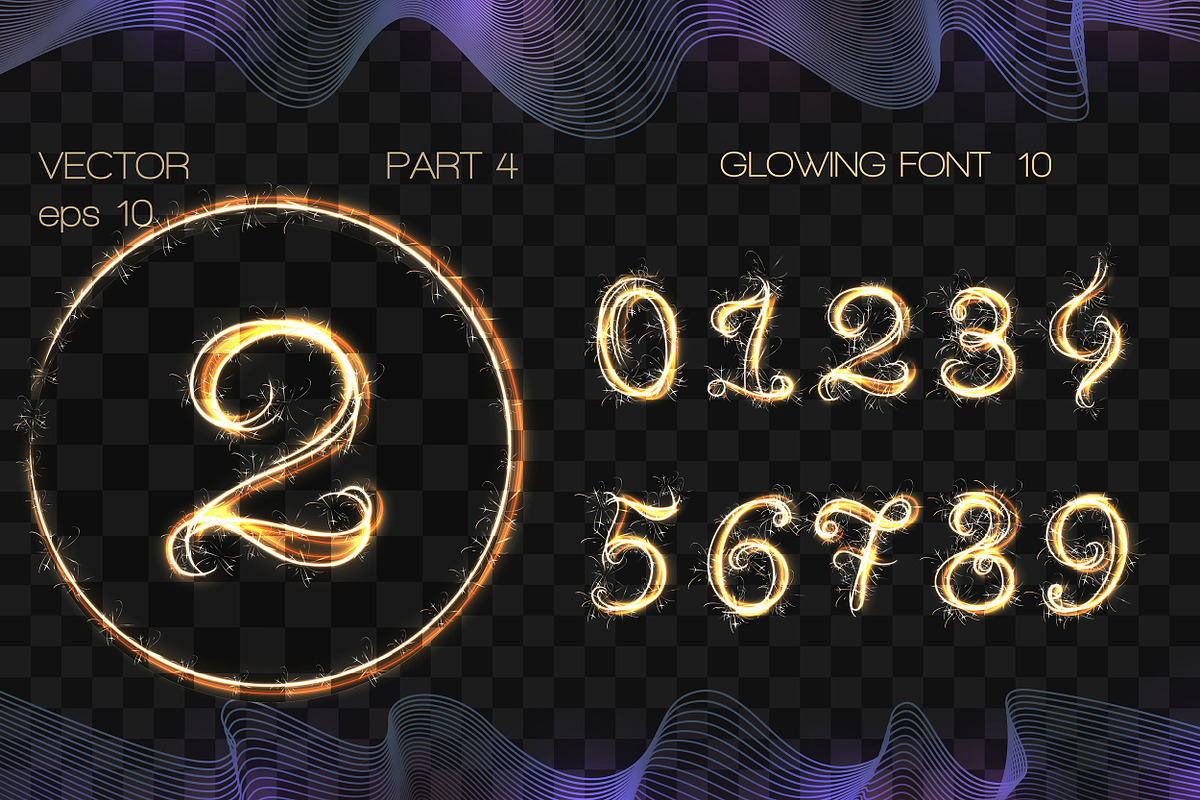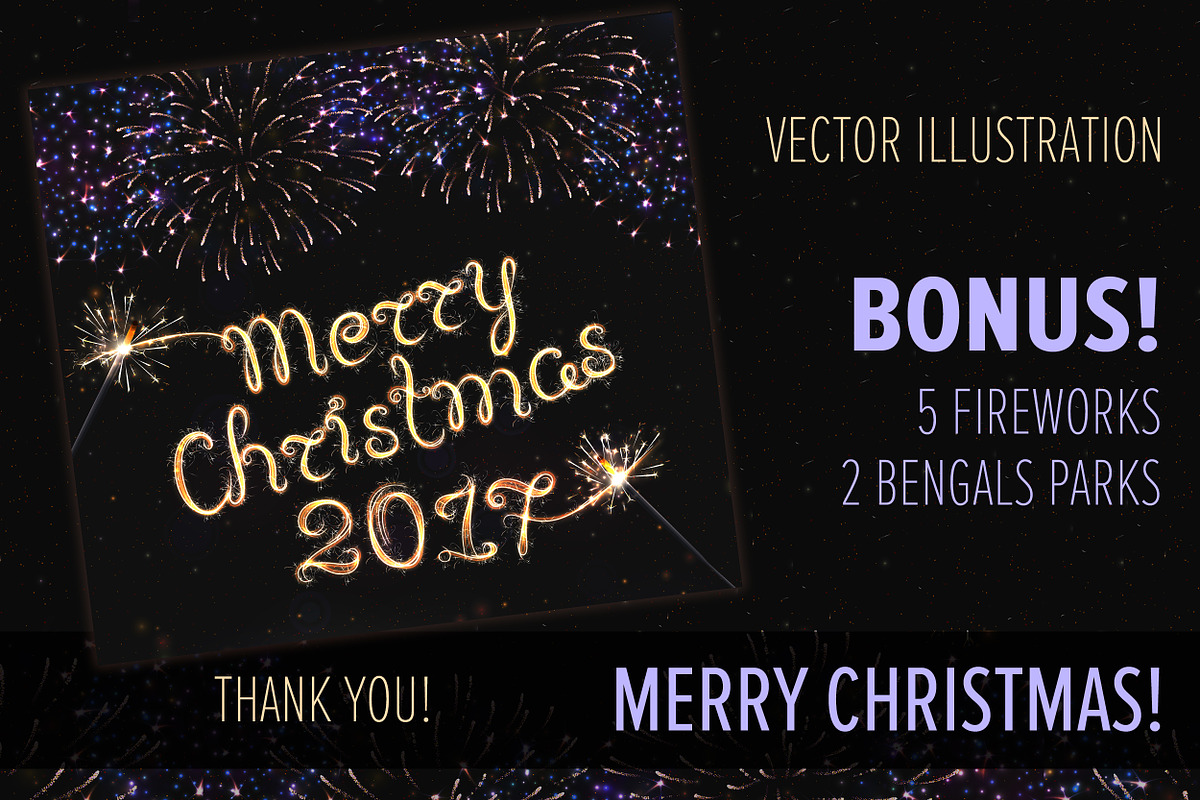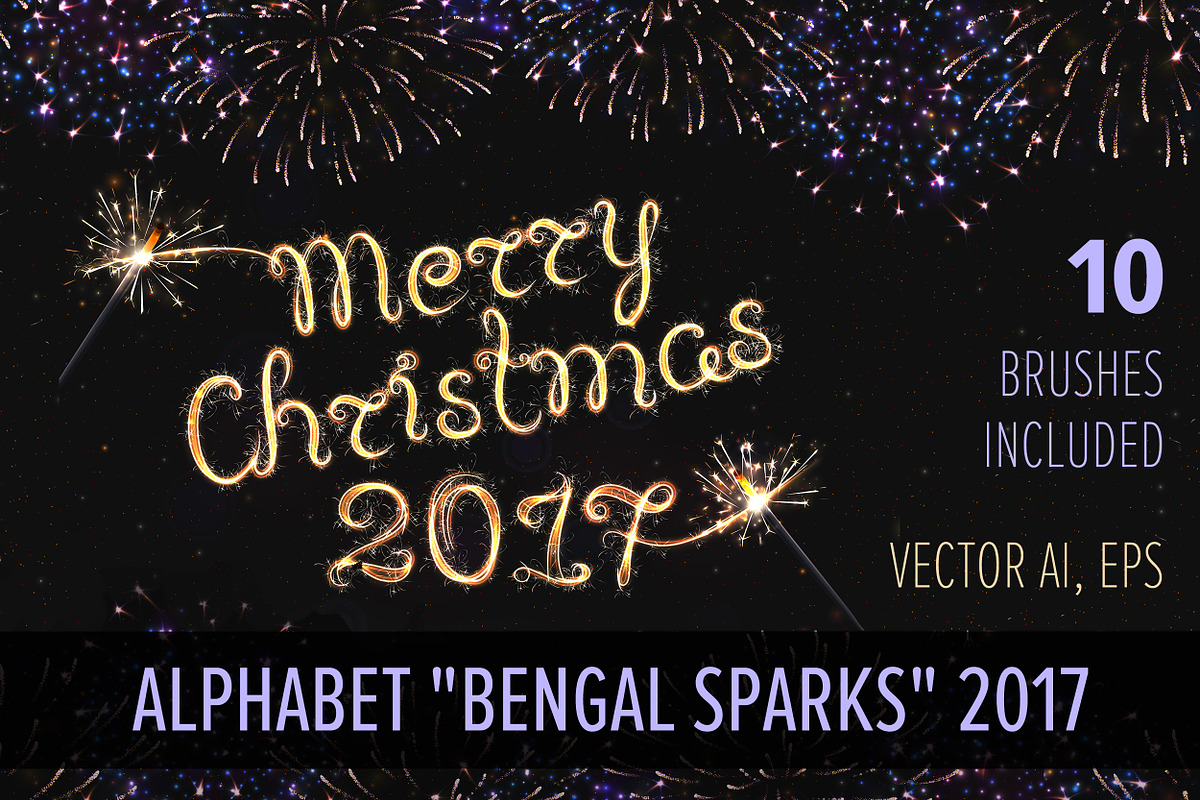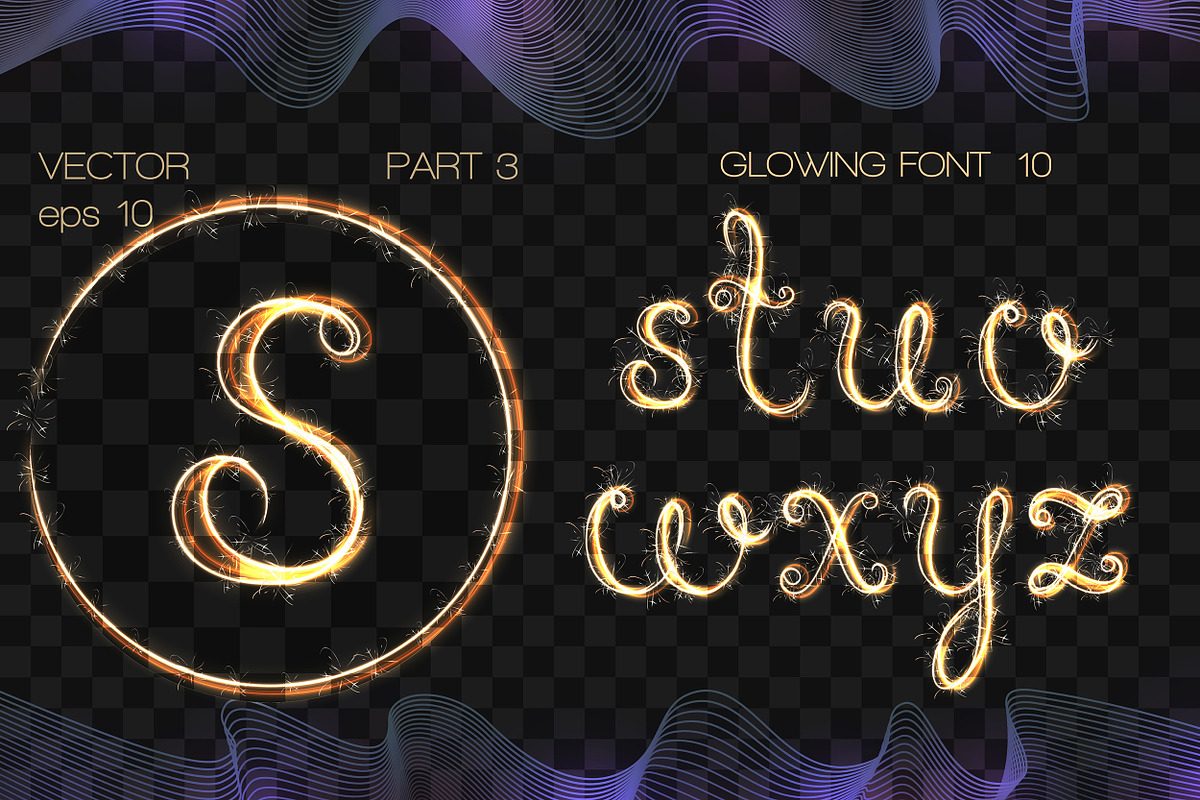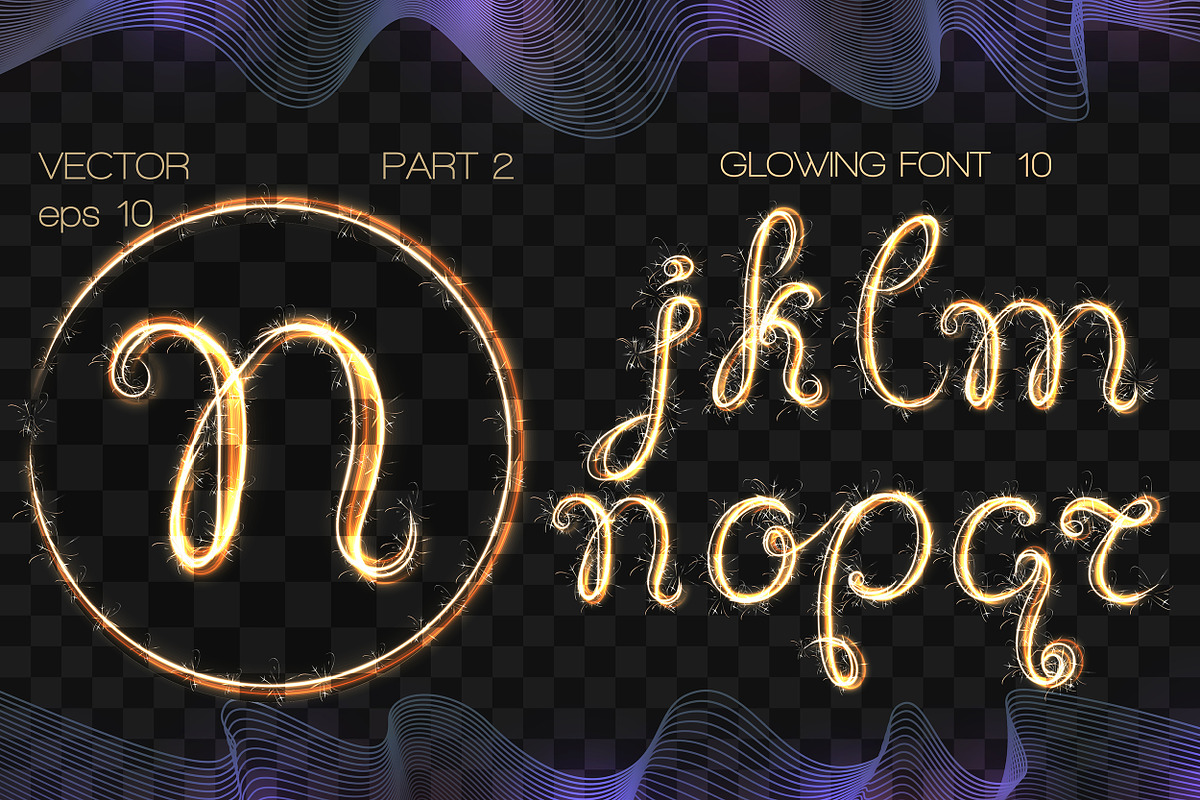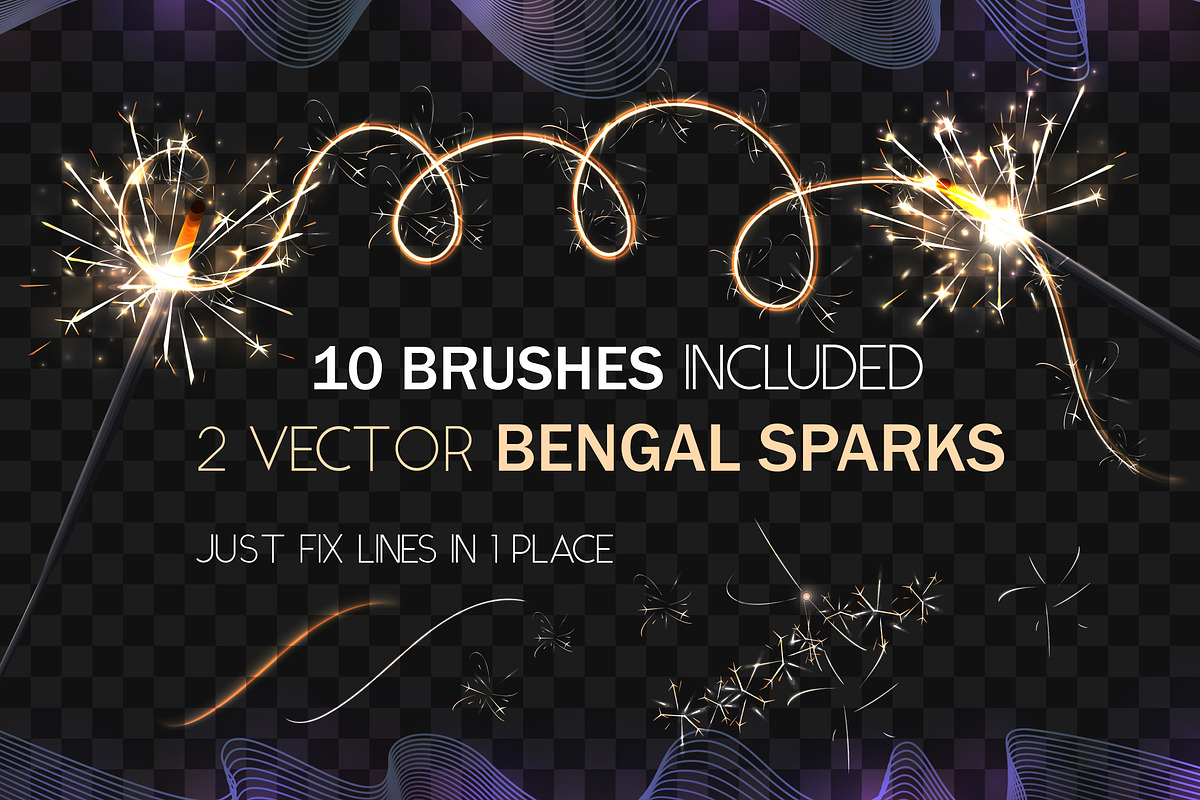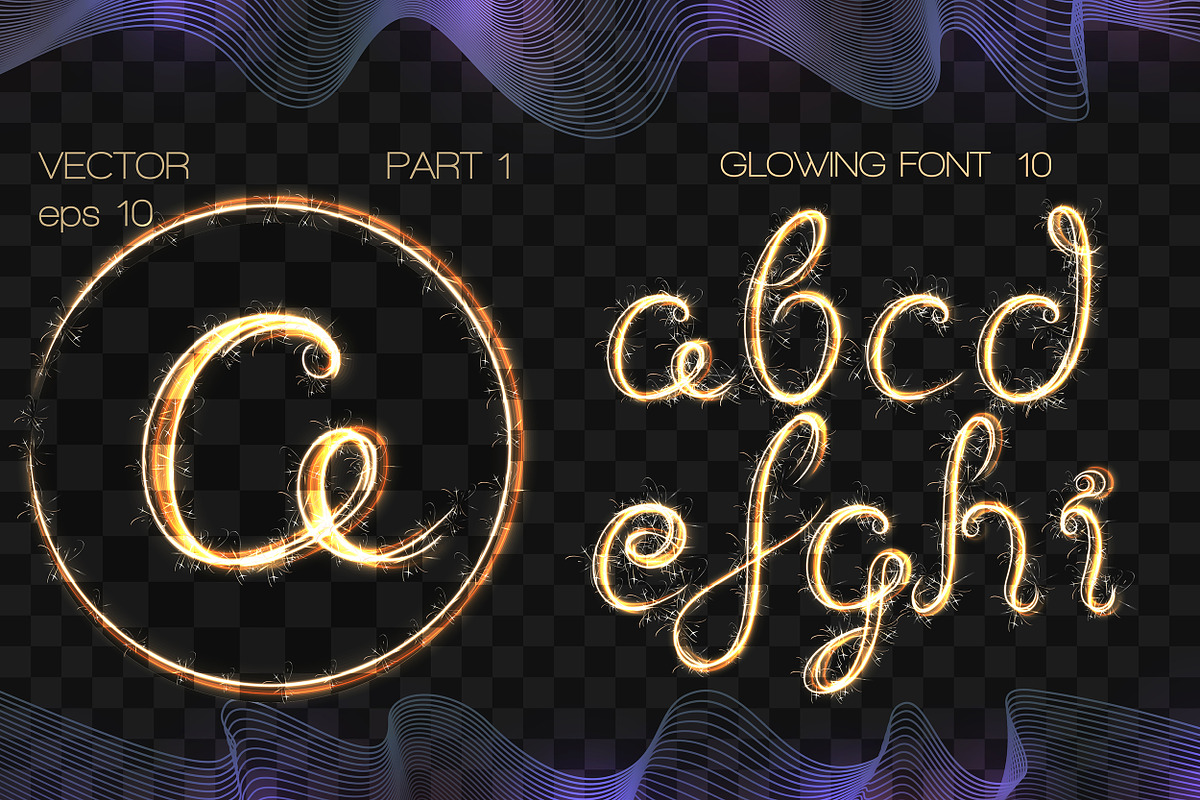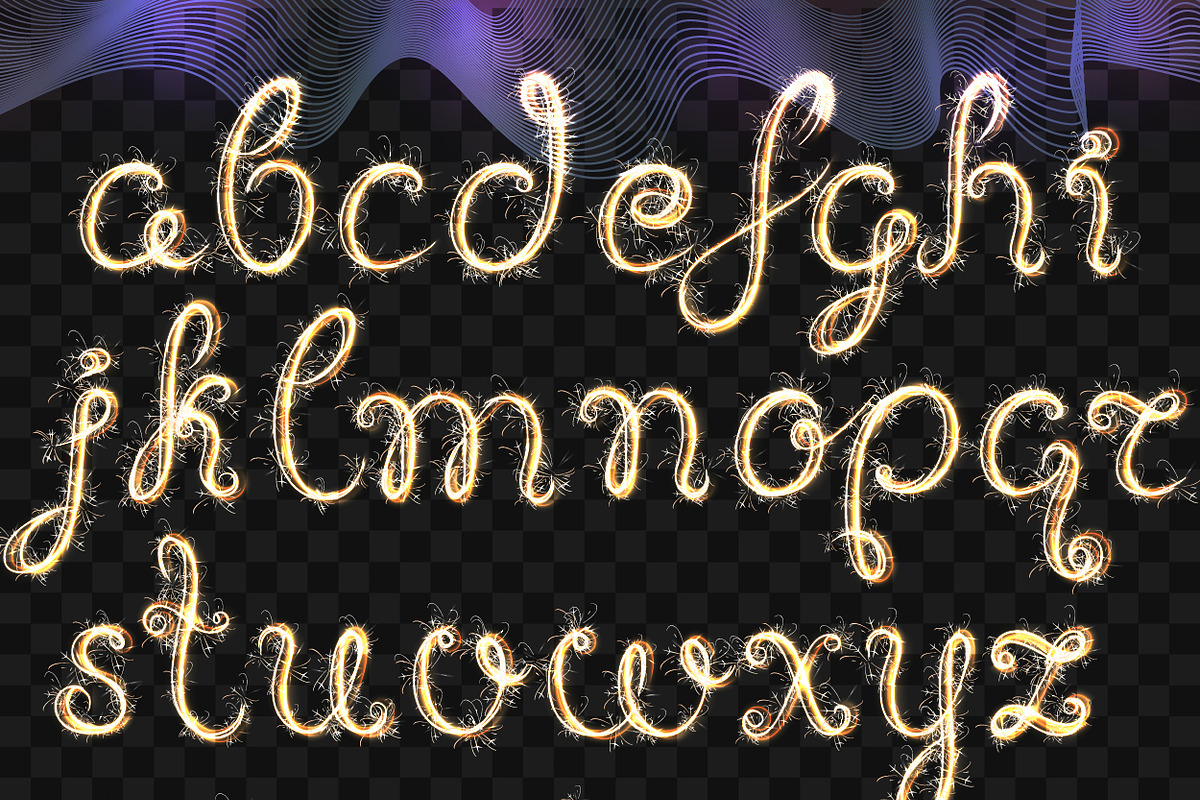
ALPHABET BENGAL SPARKS / BRUSHES /
- GLOWING ALPHABET "BENGAL SPARKS
- Alphabets in vector WITH SPARKLE BRUSHES inside for your painting
You will get not only nice brushes, but also the elegant font! As a bonus you also will get ready design with vector Firework!
This is no ttf file, this is realestic shining font only in vector with many brushes. You can use it If you have Illustrator.
- Garmony and balance in each letter
- High quality of illustrations, each line were drawn carefuly with love =)
- You can use these fonts in different designs for celebration, party, disco, new year and so on